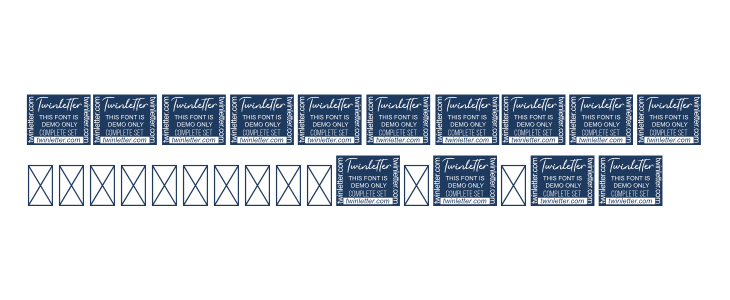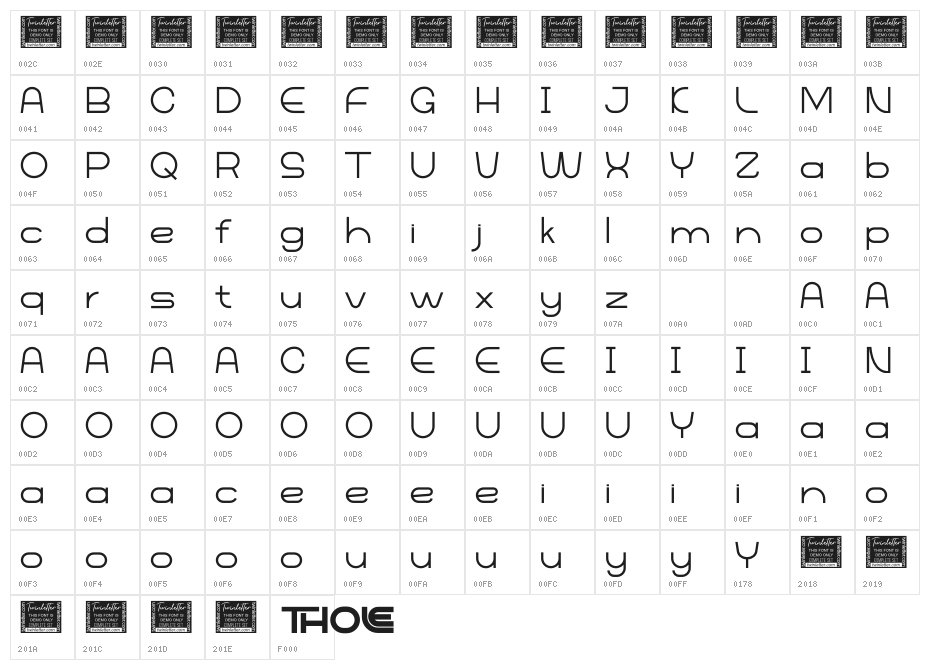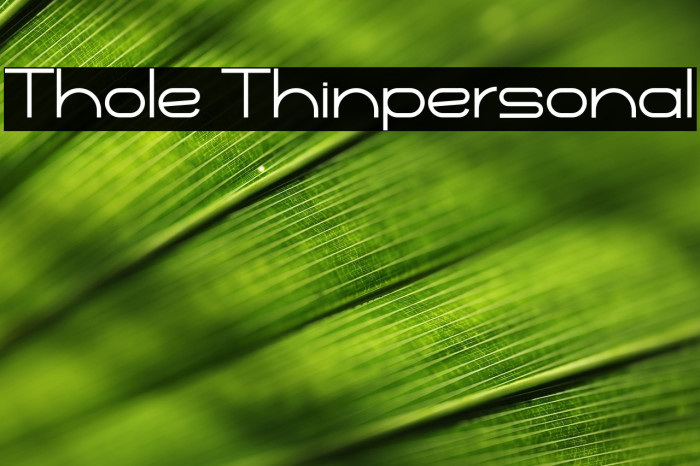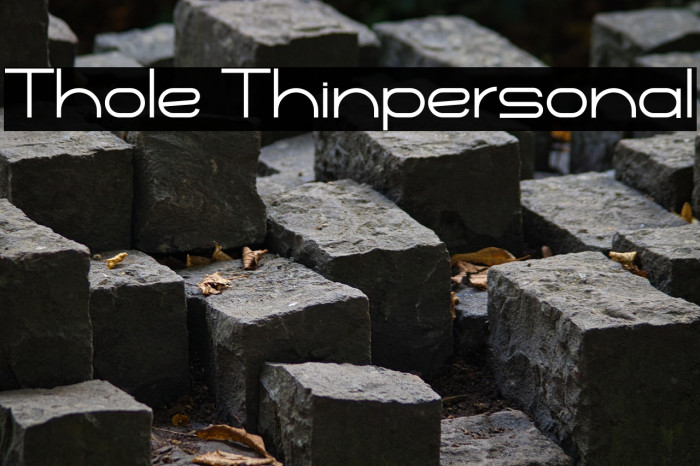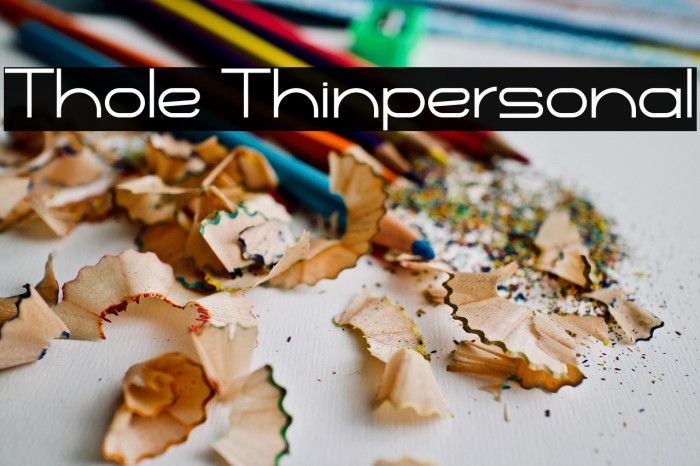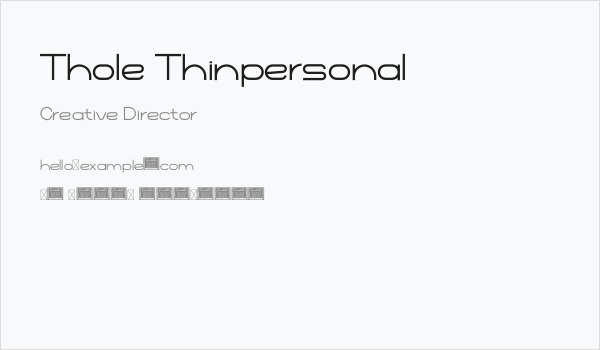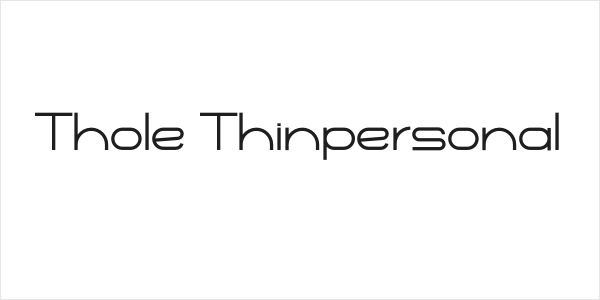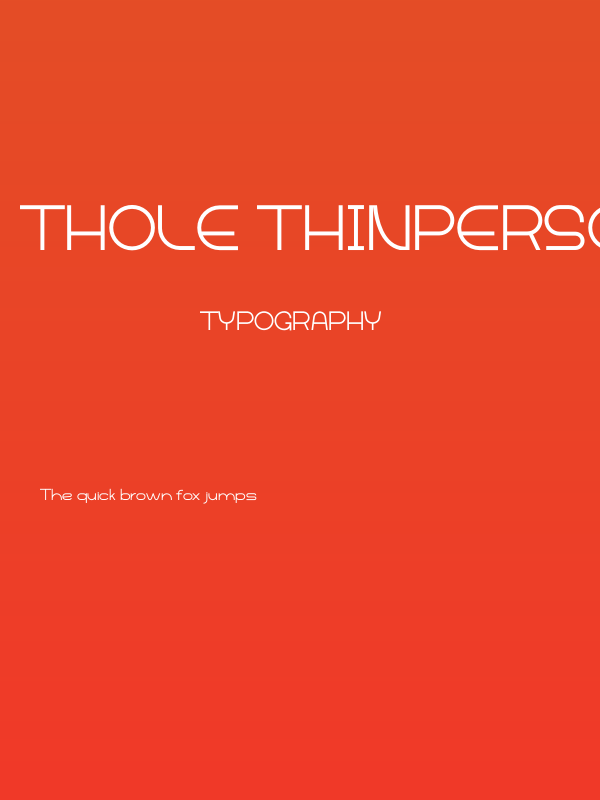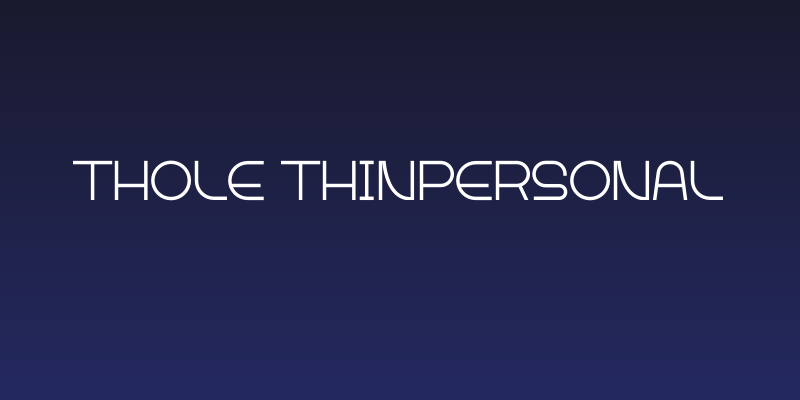
Thole Thinpersonal Font
Thole Thinpersonal Description
This font features a sleek, modern design with a geometric structure. The characters are composed of clean, straight lines and subtle curves, giving it a futuristic and minimalist appearance. The uppercase letters are uniform in height, while the lowercase letters maintain a consistent baseline, enhancing readability. The numerals and special characters follow the same design principles, ensuring a cohesive look across all text elements. Its thin strokes and open counters contribute to a light and airy feel, making it suitable for contemporary design projects.
| Proposed Projects | Ideal for tech branding, modern web design, minimalist posters, and futuristic product packaging. |